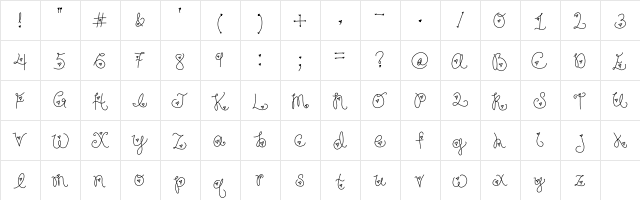
Forever In My Heart Medium
Design Context for Forever In My Heart Typeface
Forever In My Heart is a composed and adaptable typeface that performs quietly and consistently across a wide range of design contexts.